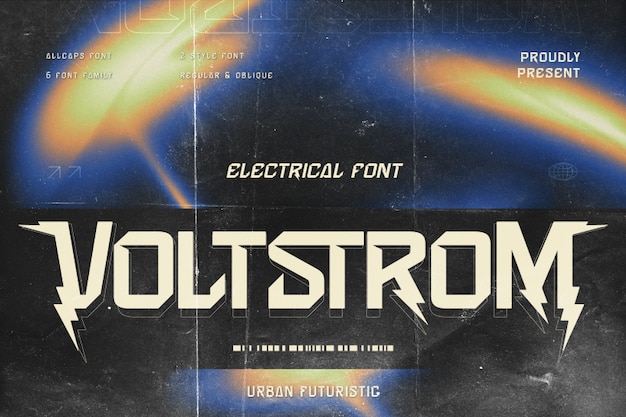
Voltstrom Font
Voltstrom is an urban, futuristic font that electrifies designs with its bold, edgy aesthetic and lightning bolt-inspired shapes. The sharp angles and dynamic lines create a sense of motion and power, perfect for tech-driven projects and modern branding. With its striking, electric vibe, Voltstrom stands out in any design, embodying the pulse of the city and the energy of innovation.